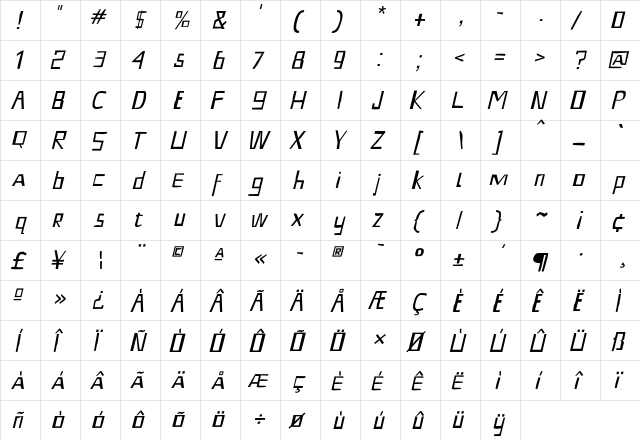
ShoeRepairs Italic
Design Context for ShoeRepairs Typeface
ShoeRepairs takes a measured approach to typography — its balanced proportions and neutral character make it a reliable workhorse for both digital and print work. The dynamic lean of this cut emphasises speed and emphasis in any layout.
Pro Tip: Use ShoeRepairs for emphasis, pull quotes, and subheadings where its slanted energy can add rhythm to the layout.